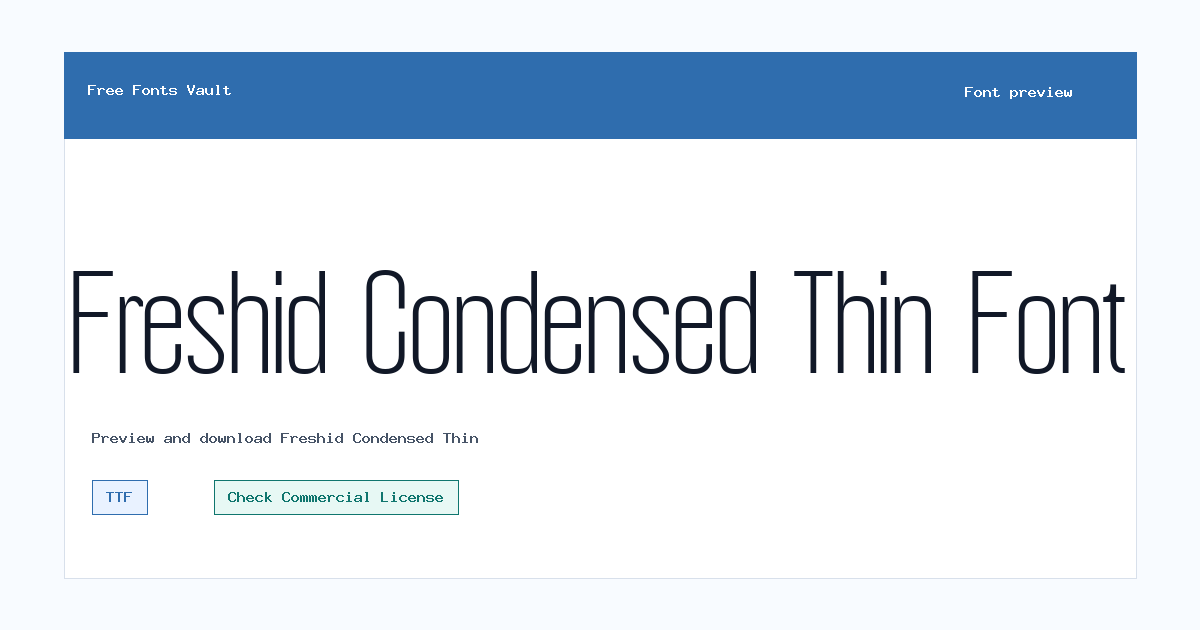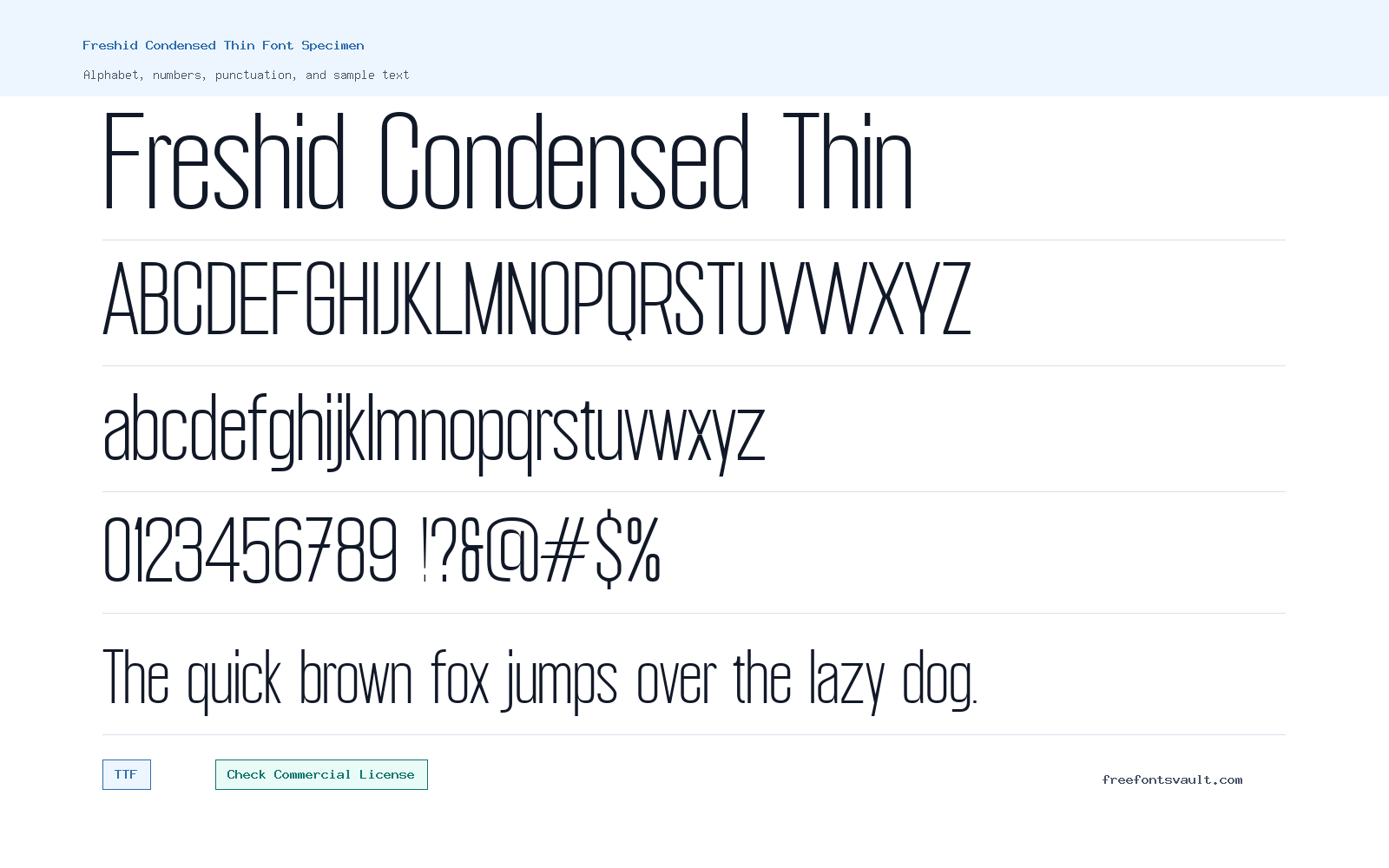
Freshid Condensed Thin
- Designer Wafi ZImamul
- Foundry Wappitype
Freshid Condensed Thin font.
Freshid Condensed Thin is a narrow, extra-light font style made for clean display use, short headings, and layouts where slim lettering helps save space.
This style is especially useful when a design needs elegance without visual weight. If your layout includes small captions or product details, keep those parts in a sturdier companion face and reserve this thin style for the main display line.
About Freshid Condensed Thin
Freshid Condensed Thin uses a condensed structure with a very light 100 weight. That gives the font a tall, slim appearance that can work well in elegant titles, minimal posters, editorial-style graphics, packaging mockups, and website hero text. Because the strokes are thin, it is best treated as a display font rather than a long-reading text face.
Use the preview box to test the exact words you plan to design with. Thin condensed fonts can look stylish at large sizes, but they may lose clarity when used too small, placed over busy images, or printed with low contrast. Try it with generous spacing, simple backgrounds, and a stronger companion font for body text.
- Condensed letterforms with a slim, space-saving profile
- Normal upright style for clean titles and display settings
- Useful for short text where a narrow, refined look is needed
- Minimal logo drafts and wordmark experiments
- Fashion, beauty, or editorial-style headings
- Posters, banners, and social graphics with short text
- Packaging mockups, labels, and clean presentation layouts
- Website hero titles where the font can be shown at a large size
Freshid Condensed Thin is credited to Wafi ZImamul, with Wappitype listed as the foundry.
For best results, use Freshid Condensed Thin at larger sizes and avoid long paragraphs. Pair it with a readable sans serif or serif for body copy, and increase letter spacing if your headline feels too tight. For the thin weight, test contrast carefully. Light condensed letters can look elegant in large headlines, but they may disappear on textured backgrounds or small mobile thumbnails.
What font weight is Freshid Condensed Thin?
It is listed with a 100 weight, which is an extra-light or thin weight.
Is this font good for body text?
It is better for short display text. The thin strokes and condensed shape can become hard to read in small paragraphs.
Who designed Freshid Condensed Thin?
The font is credited to Wafi ZImamul, and Wappitype is listed as the foundry.